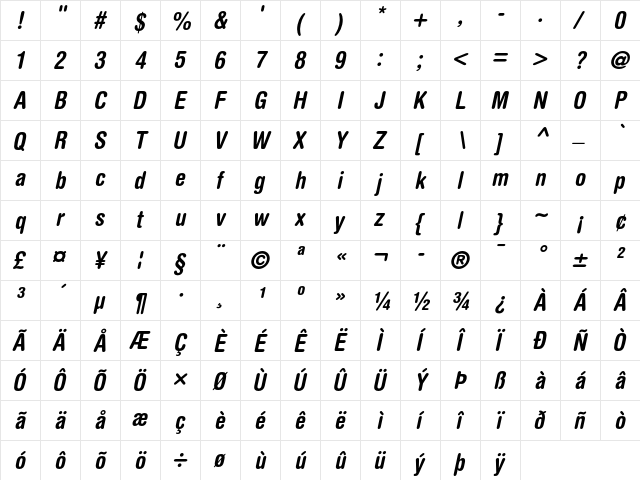
Helvetica Rounded Bold Condensed Oblique Font Preview
Design Context for Helvetica Rounded Typeface
Helvetica Rounded softens its letterforms with rounded terminals, giving it an approachable, friendly quality that works well in consumer-facing and digital contexts. The slanted form adds forward momentum and visual energy. The heavy weight commands attention and anchors typographic hierarchies.
A natural fit for tech startups, health and wellness brands, children's products, and friendly consumer apps.
Font Pairing: Pairs well with a rounded or humanist sans for body copy, maintaining the friendly tone without relying on Helvetica Rounded to carry extended reading.
Pro Tip: Pair Helvetica Rounded with a geometric sans for a balanced system — the rounded softness works as a warm counterpoint to harder-edged companions.